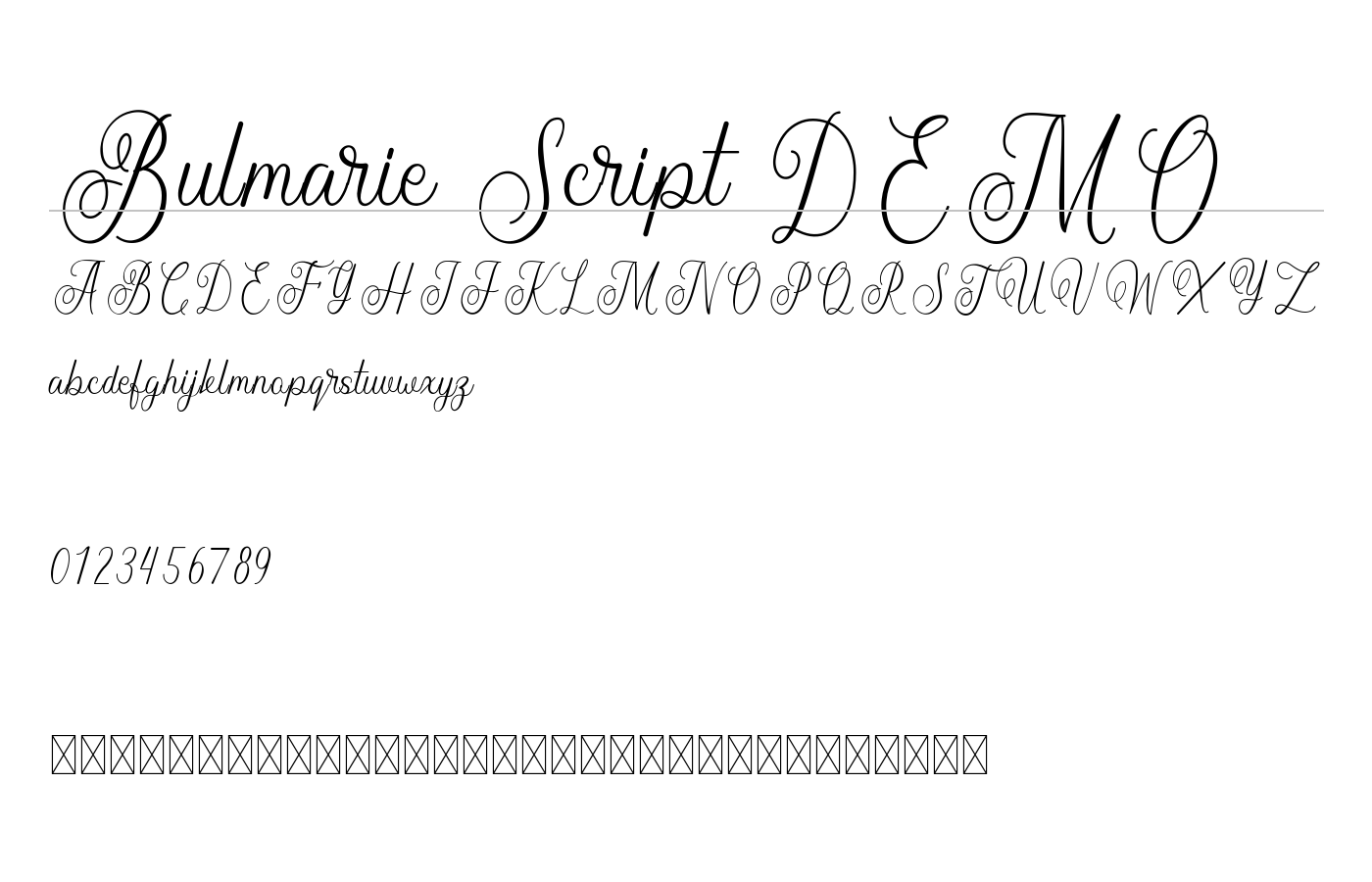
Bulmarie Script DEMO is an elegant, delicate script font with thin, flowing strokes and graceful curves that evoke a handwritten calligraphic style. Its tall, narrow letterforms with decorative flourishes make it ideal for sophisticated and romantic designs, such as wedding invitations, luxury branding, and elegant logos. This font works best in large sizes for headlines or decorative text where its fine details can be appreciated.
Bulmarie Script DEMO Font
About Bulmarie Script DEMO Font